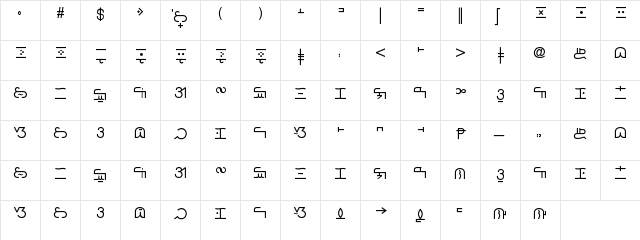
Basahan Linear -Normal Regular
Design Context for Basahan Linear -Normal Typeface
Basahan Linear -Normal offers clean, dependable letterforms without strong stylistic allegiance, making it a practical choice for designers who need flexibility.